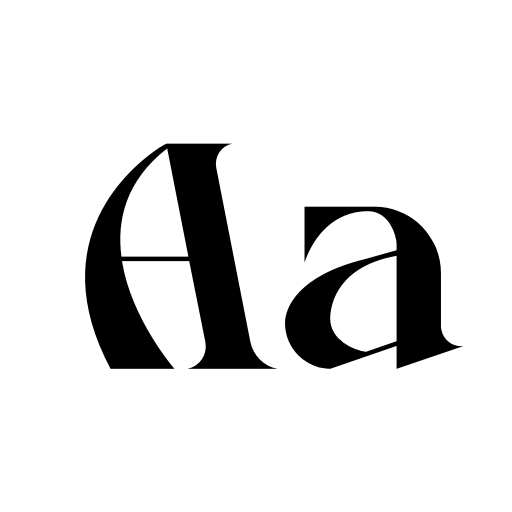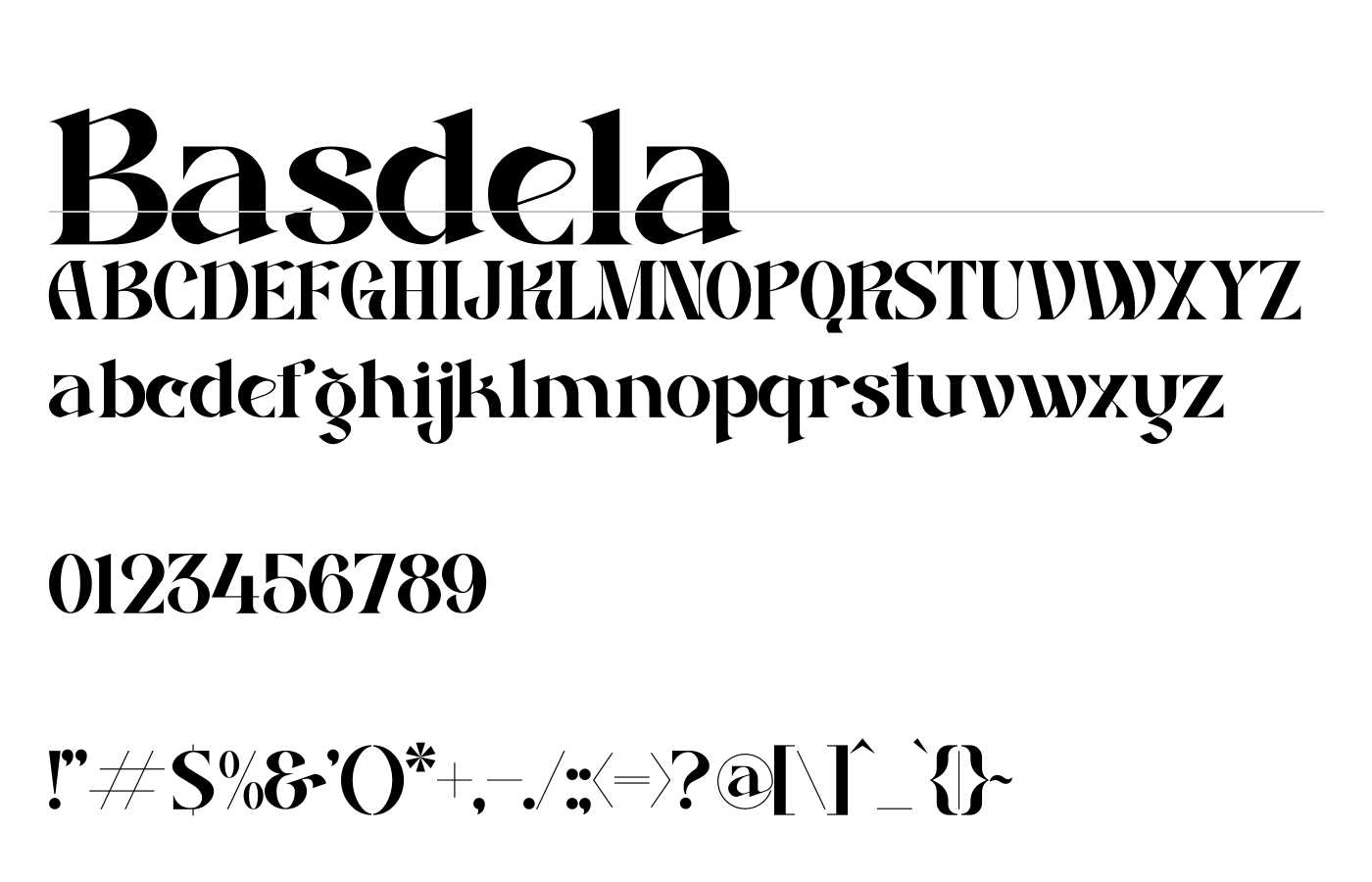
Basdela is a striking serif font with a bold weight and high contrast between thick and thin strokes, lending it a dramatic and sophisticated look. Its unique, slightly condensed letterforms combine sharp, edgy serifs with artistic curves, creating a blend of modern flair and classic elegance ideal for luxury branding, editorial headlines, and fashion-related designs. This font’s distinctive personality shines in display settings where it adds a bold, stylish statement with a refined and contemporary touch.
Basdela Font
About Basdela Font